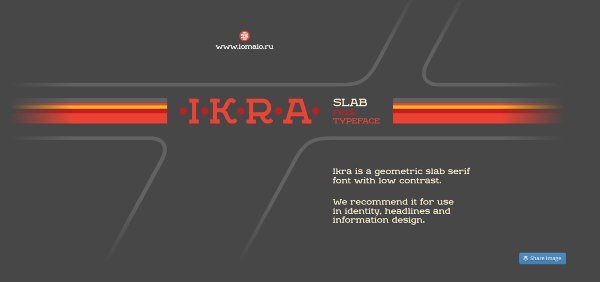
Ikra is free geometric slab serif font with low contrast. It’s best use is for identity, and information design (like infographics). It has extended Latin character and alsoCyrillic and Bashkir character support. Ikra is free to download and use – all you have to do is spread the word about it via tweet.